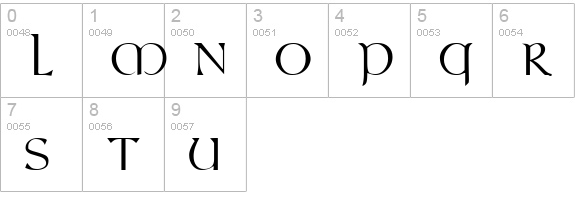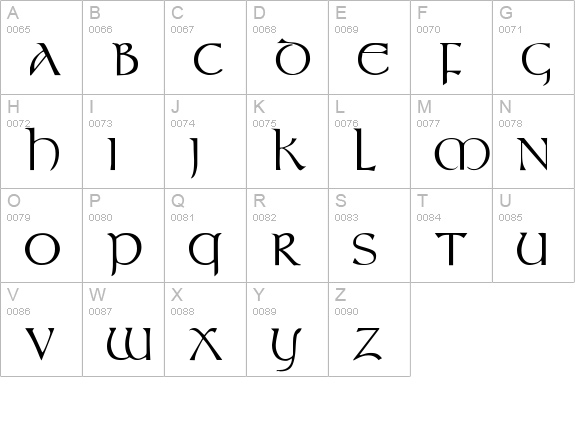
DoralCaps Font Details
DoralCaps font is a stylish and modern typeface that exudes elegance and sophistication. Designed with clean lines and a sleek appearance, this font is perfect for adding a touch of class to any project. Its tall, narrow letterforms make a bold statement while remaining easy to read. What sets DoralCaps font apart is that it is available for free download at FontsMarket.com. This means that you can easily access this high-quality font without any cost, making it a great choice for designers and creatives on a budget. Whether you're working on branding, editorial design, or any other project, DoralCaps font will elevate your work and give it a professional edge. Don't miss out on this opportunity to enhance your designs with the elegance of DoralCaps font. Download it for free today at FontsMarket.com and take your projects to the next level.